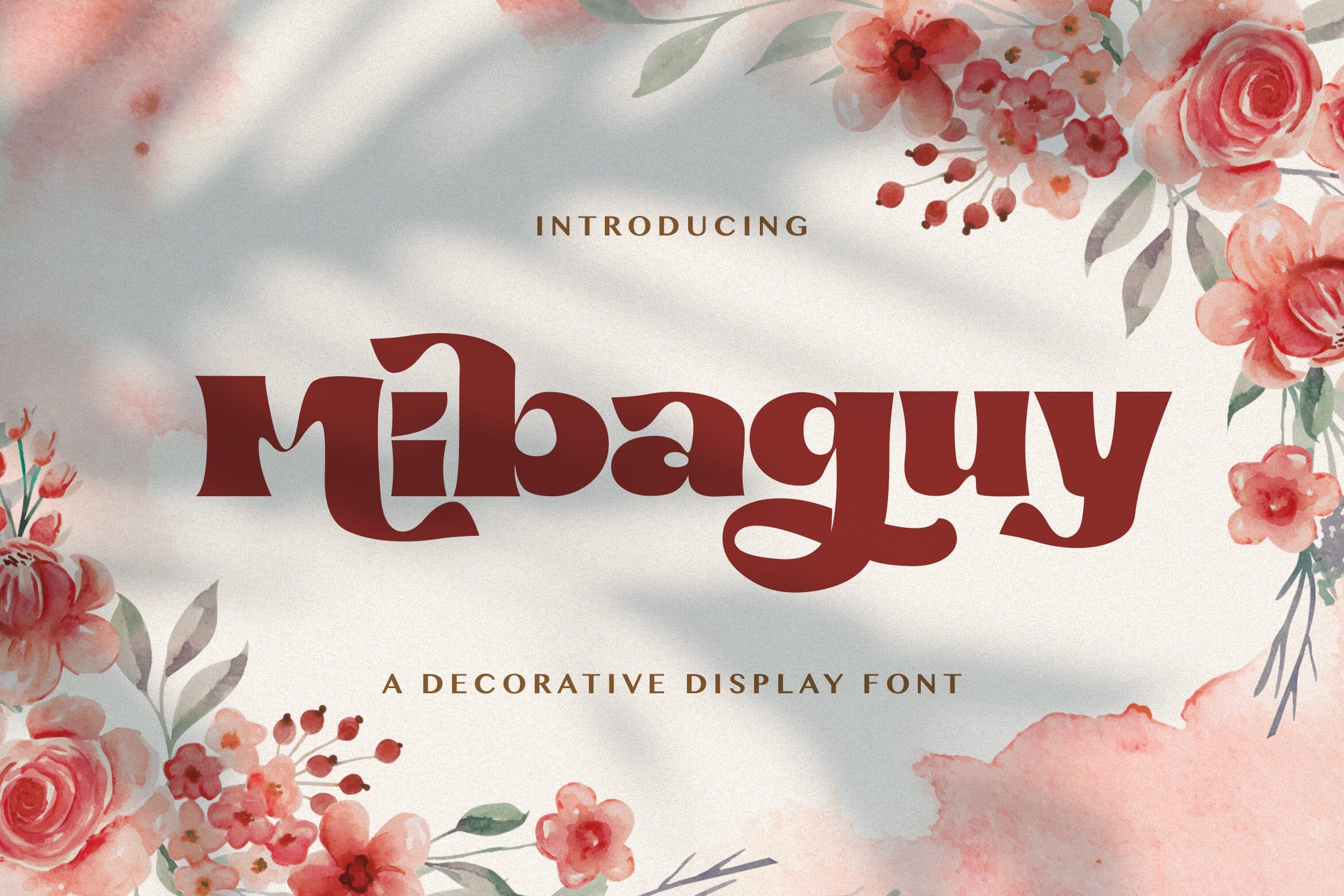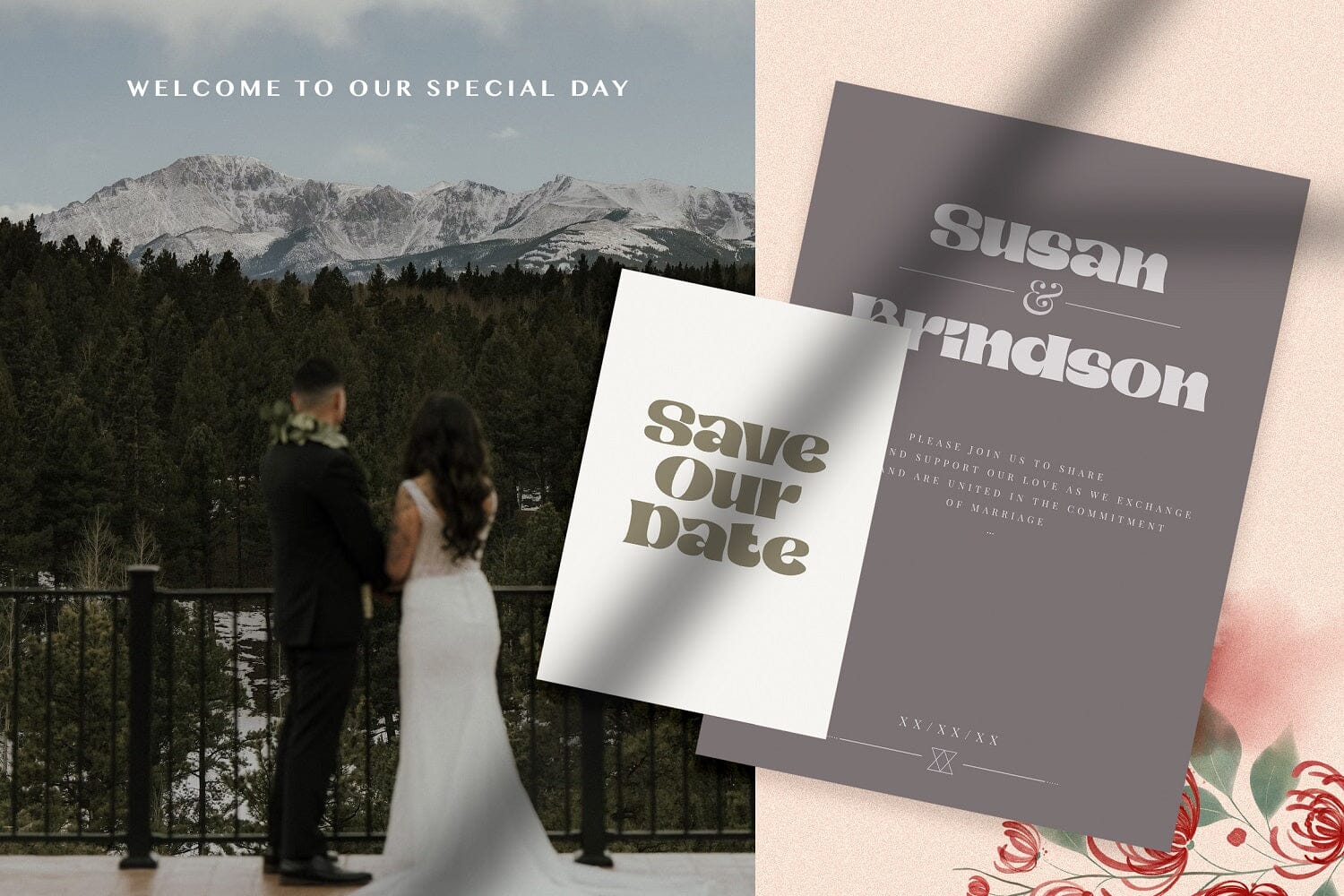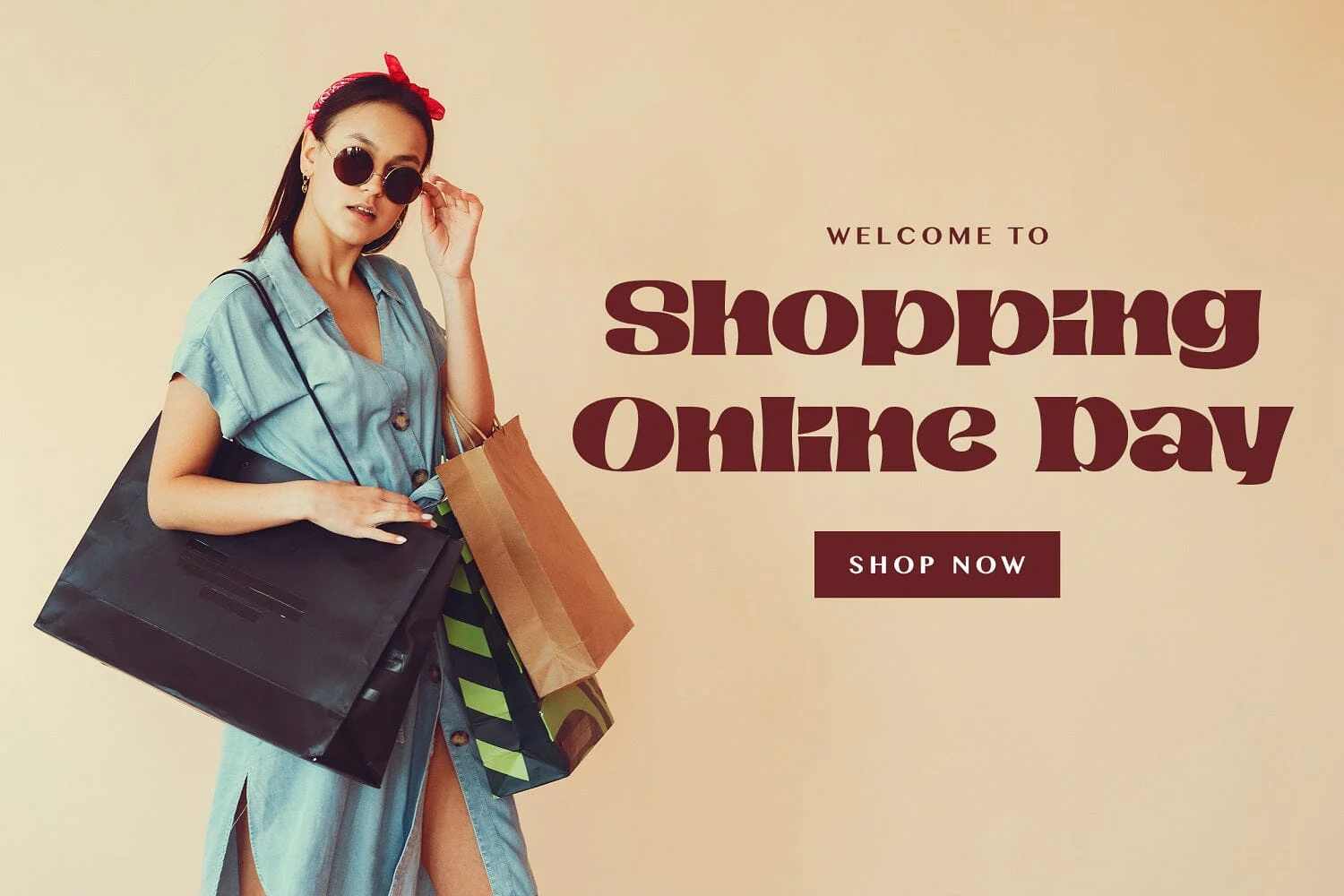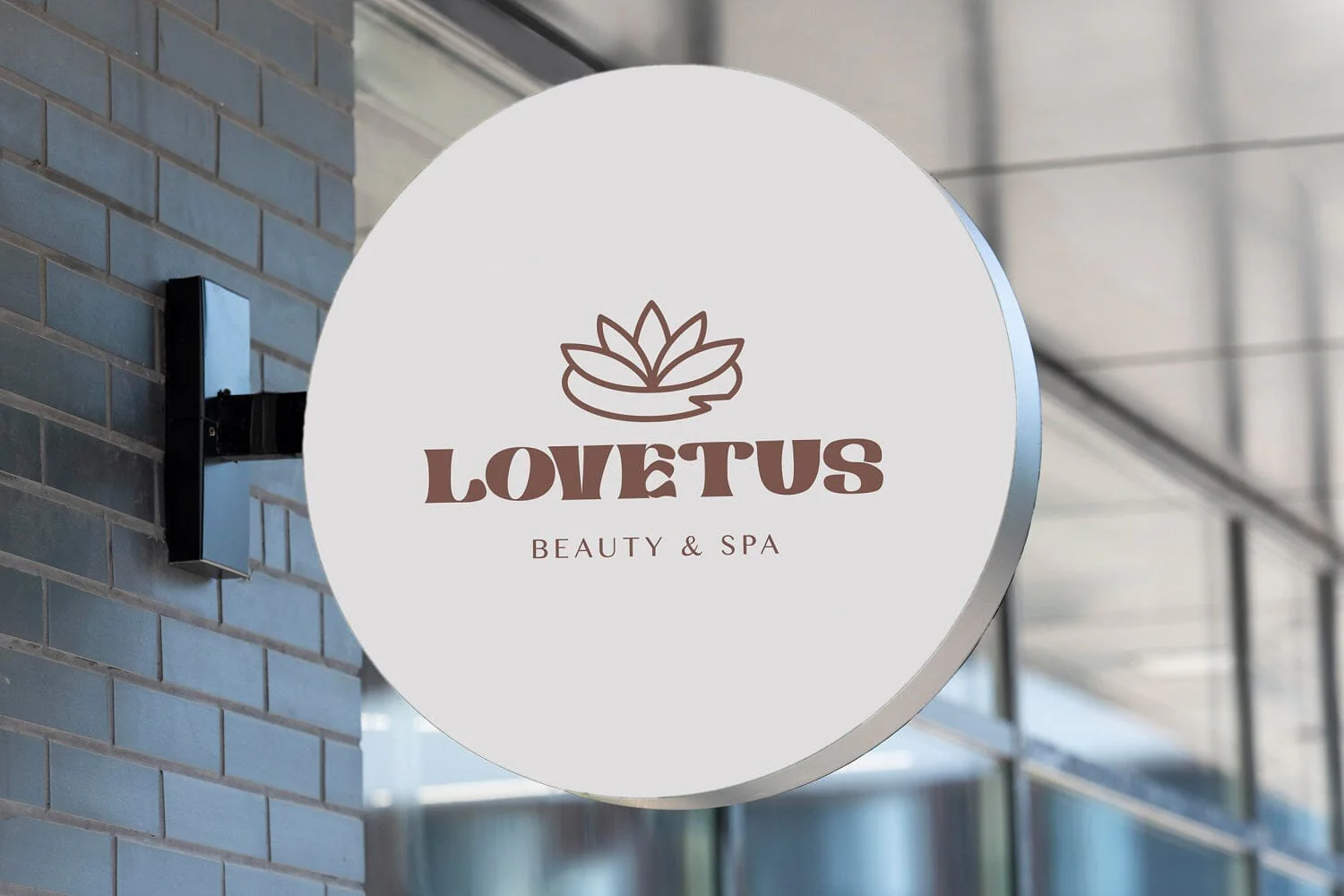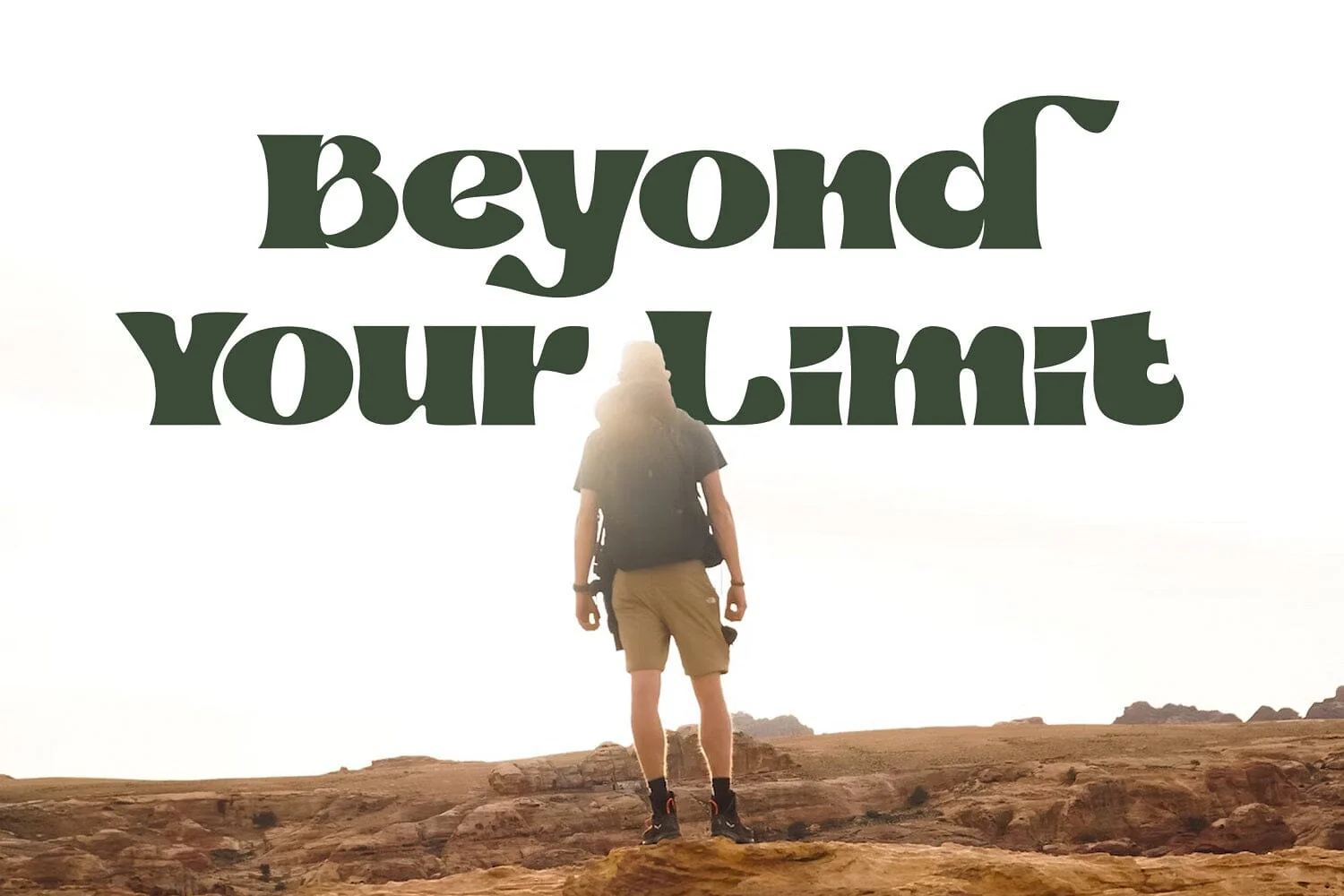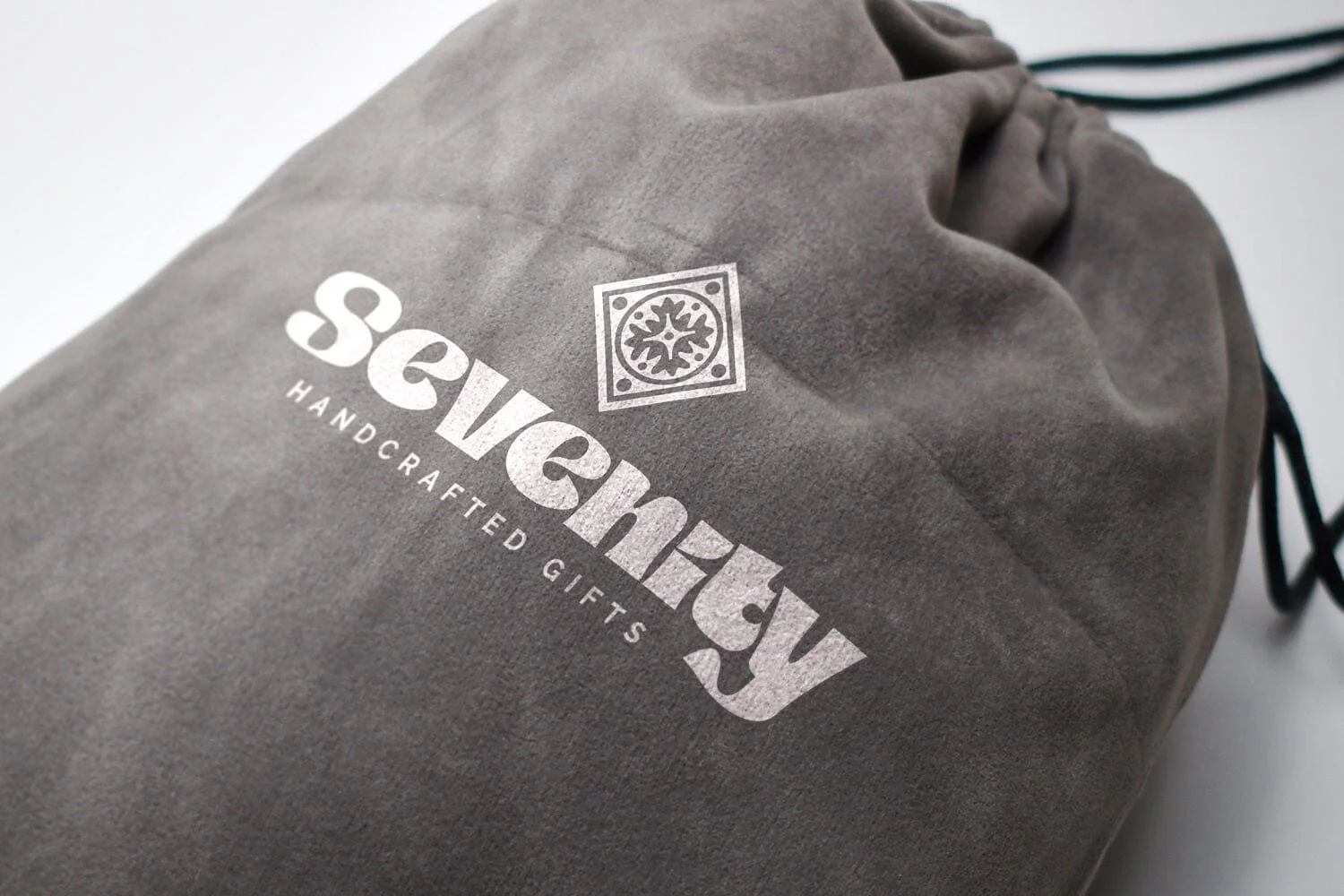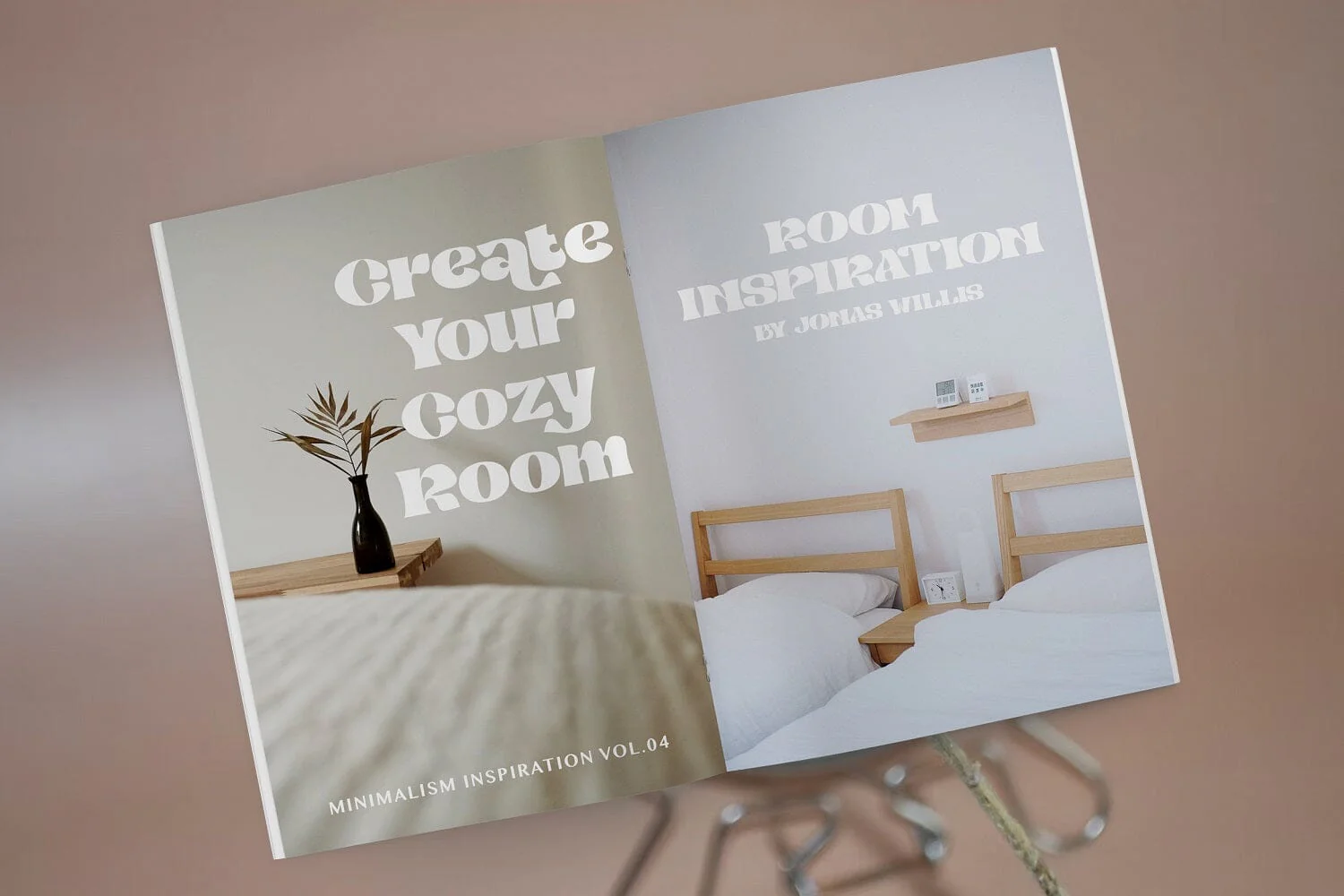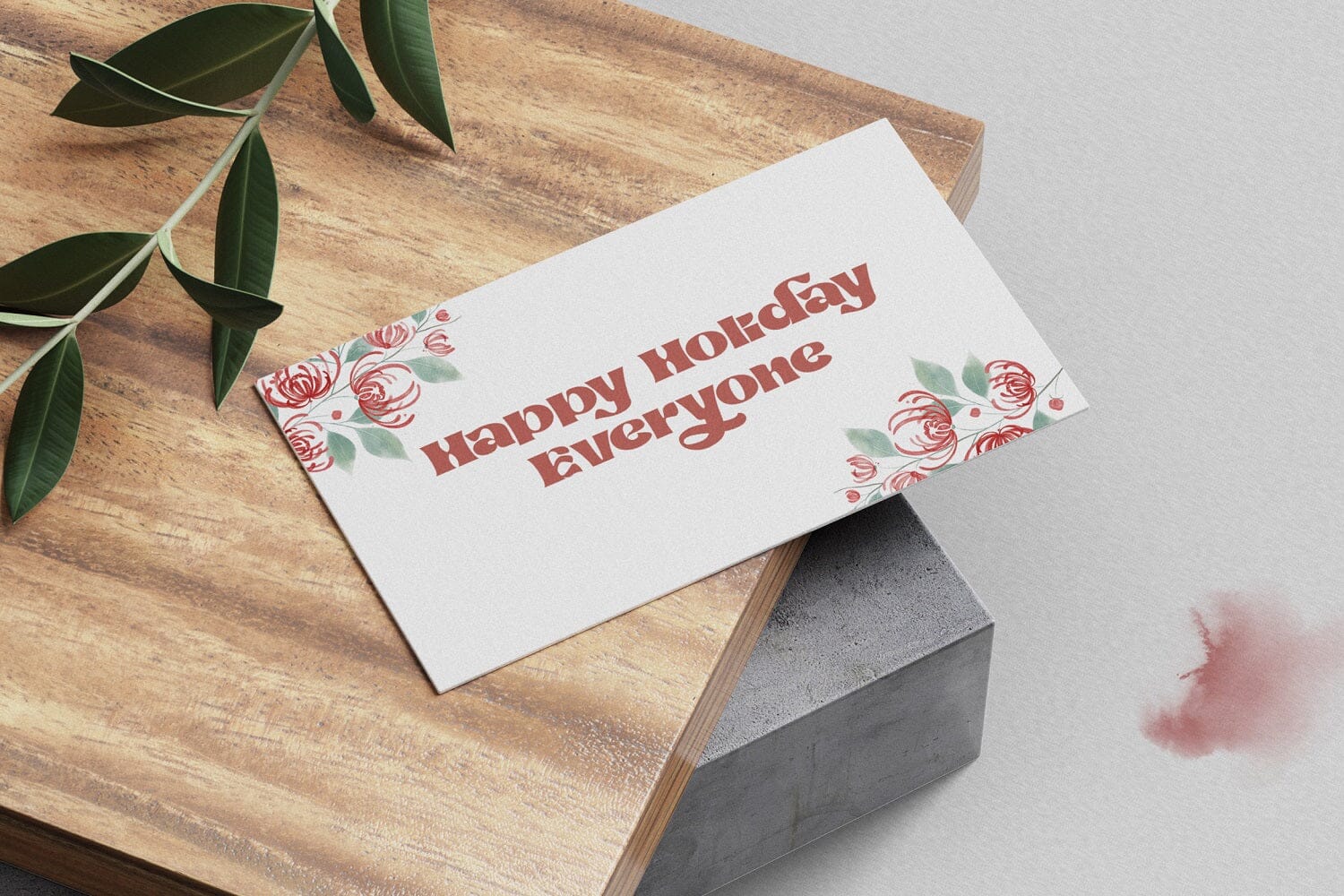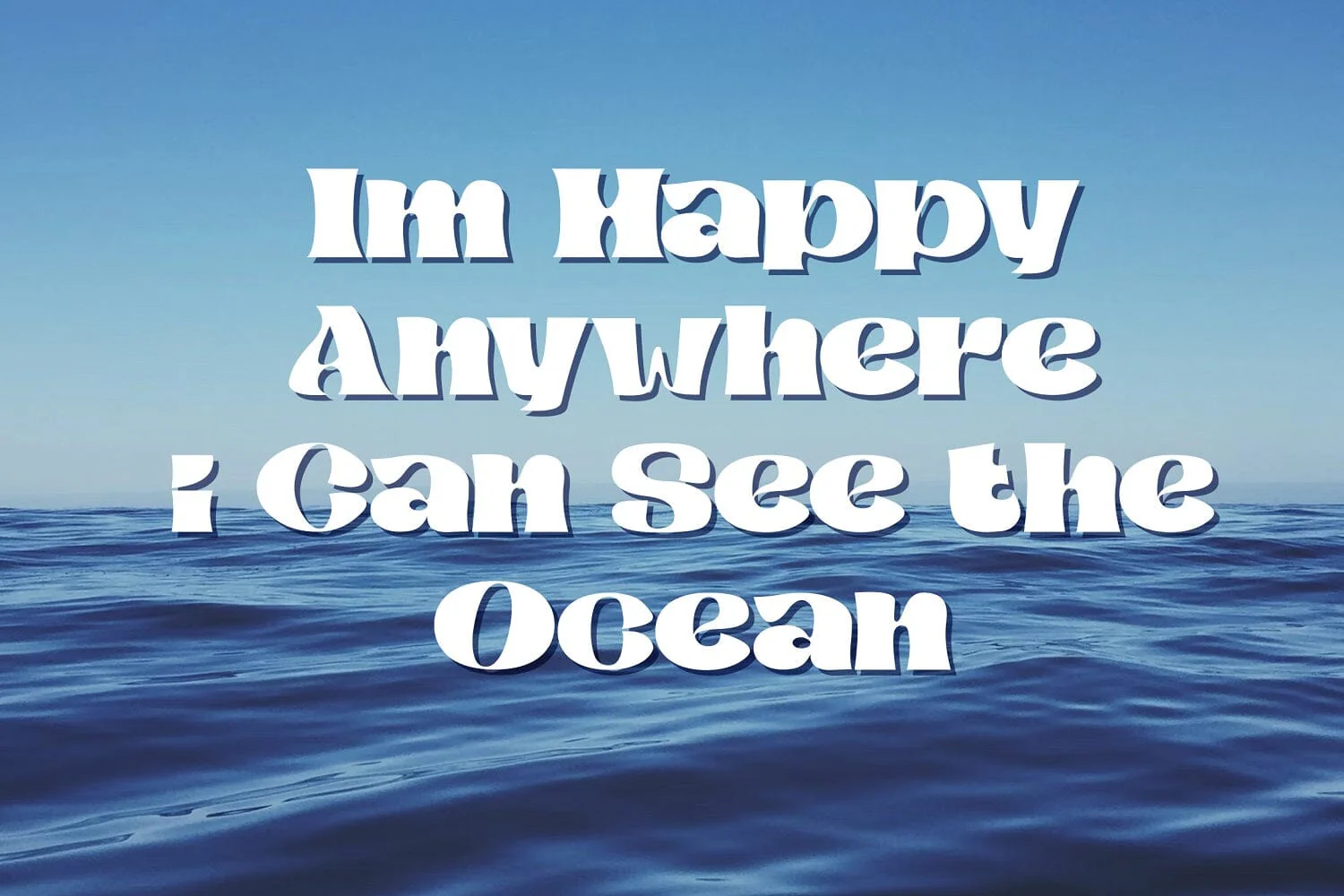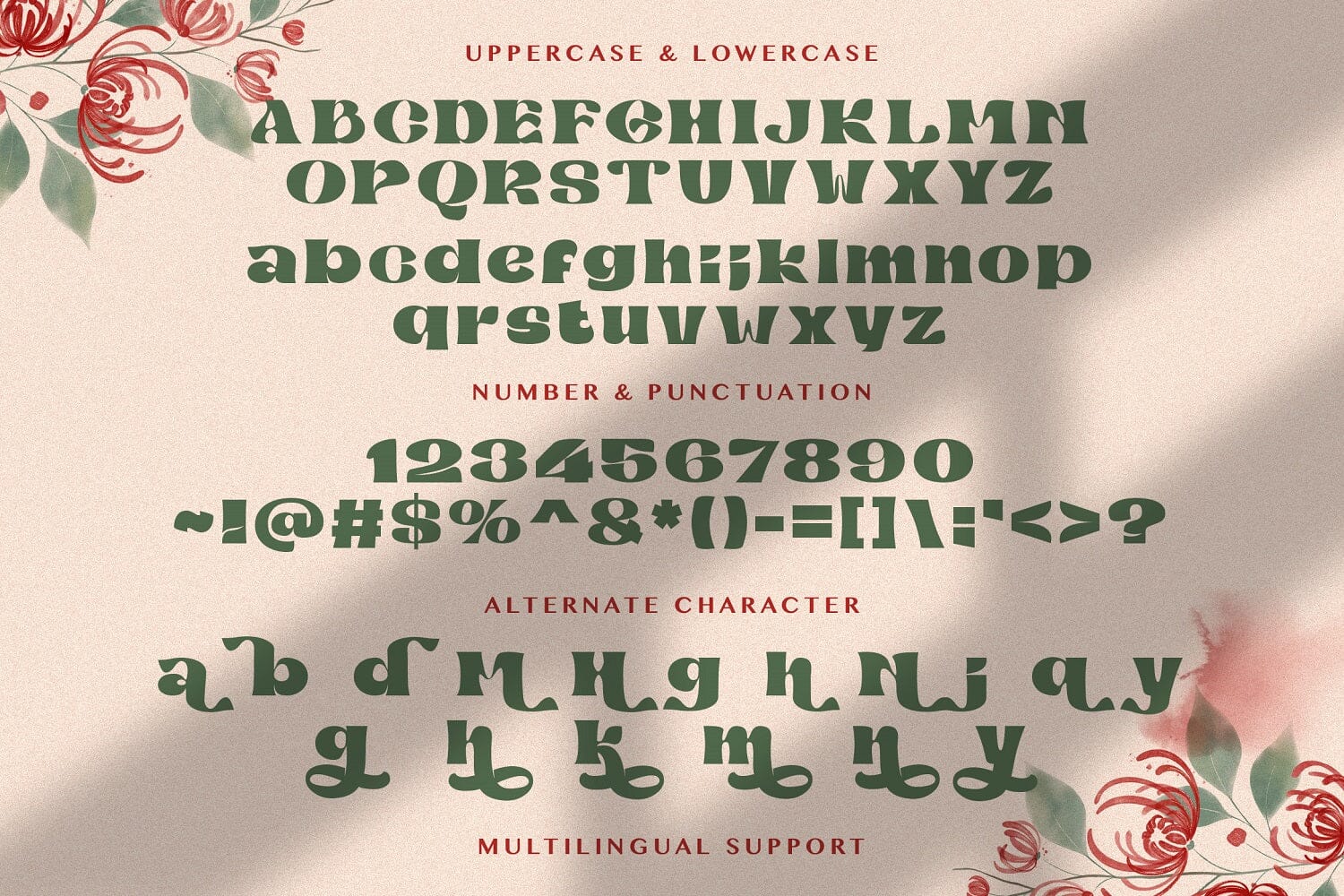
Mibaguy - Decorative Display Font
Introducing Mibaguy - Decorative Display Font
Mibaguy is a playful display sans serif font with elegant style. Add this decorative display font to each of your creative ideas and notice how it makes them stand out. Fall in love with its dynamic charm, and make this fancy display part of your craft library now.